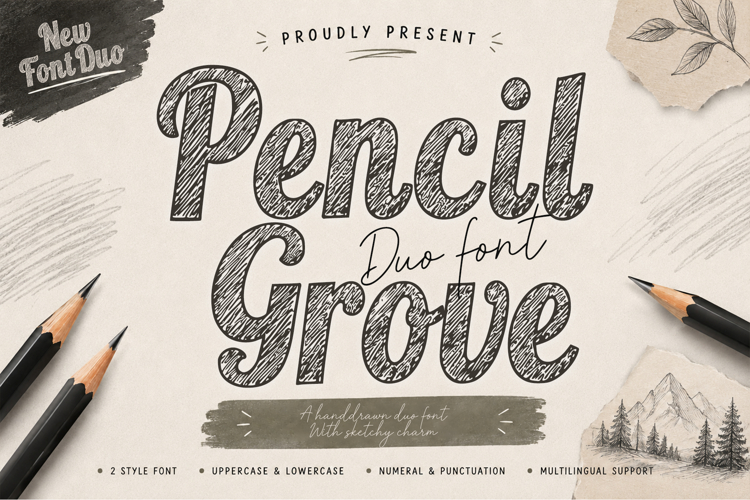
Pencil Grove Duo is a handcrafted font duo that combines a bold sketch serif with a flowing signature script. Inspired by pencil illustrations and hand-drawn textures, this font delivers a warm, artistic, and authentic look for creative projects.
The textured serif creates a strong handcrafted character, while the elegant signature script adds a natural contrast, making it easy to design eye-catching typography with a unique handmade feel.